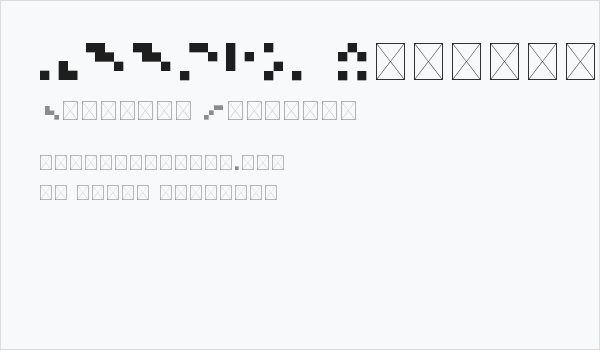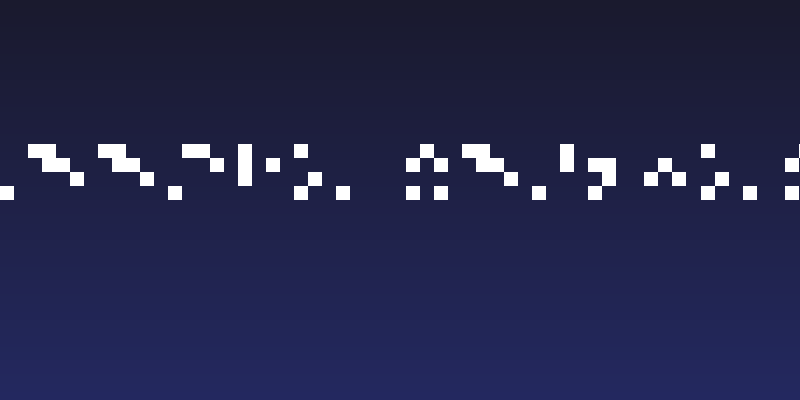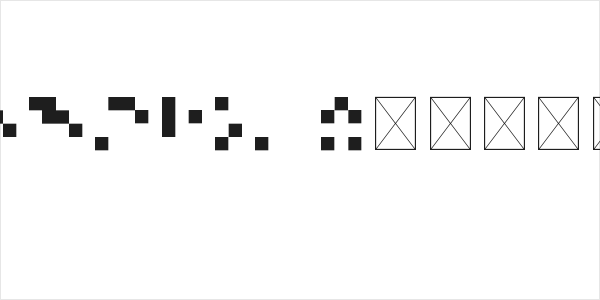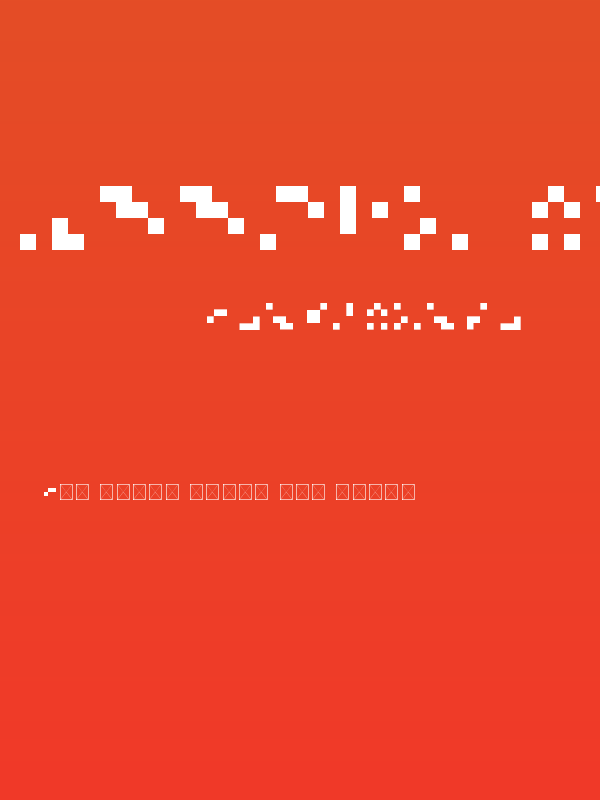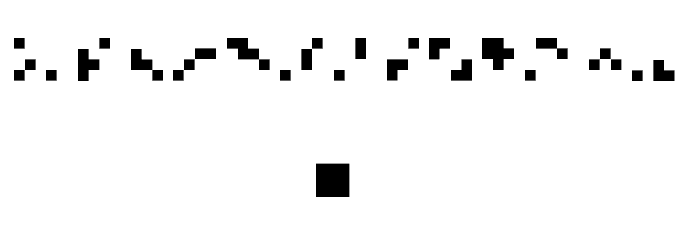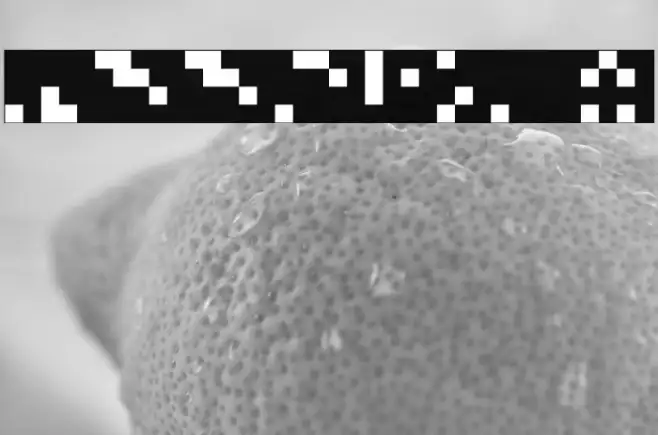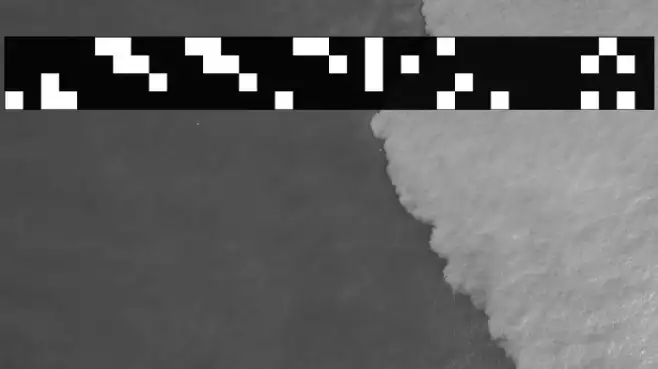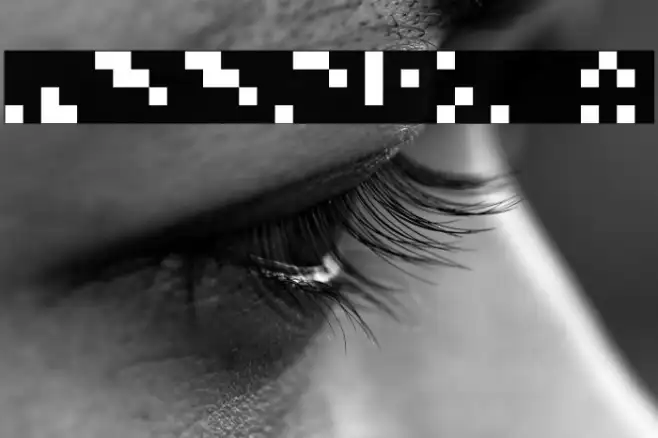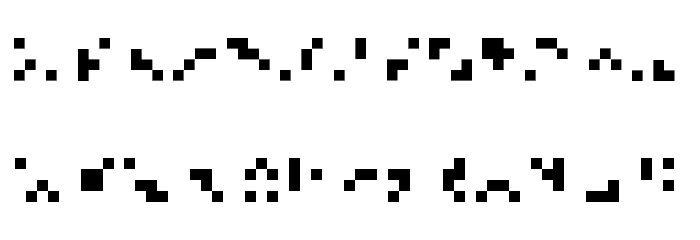
MEEKSA Regular Font
MEEKSA Regular Description
This font features a pixelated, blocky design reminiscent of early digital displays or retro video games. Each character is composed of small square blocks, creating a distinct, low-resolution appearance. The uniformity in the block size across all characters gives it a cohesive look, while the spacing between the blocks ensures legibility. The font maintains a consistent height and width for each character, contributing to its monospaced nature. This style evokes a sense of nostalgia and is ideal for projects that aim to capture the essence of classic computing or gaming aesthetics.
| Use Case | Logos, Digital art, Retro-themed projects |
| Proposed Projects | Ideal for retro video game designs, digital art projects, or any creative work that seeks to evoke nostalgia for early computing aesthetics. |